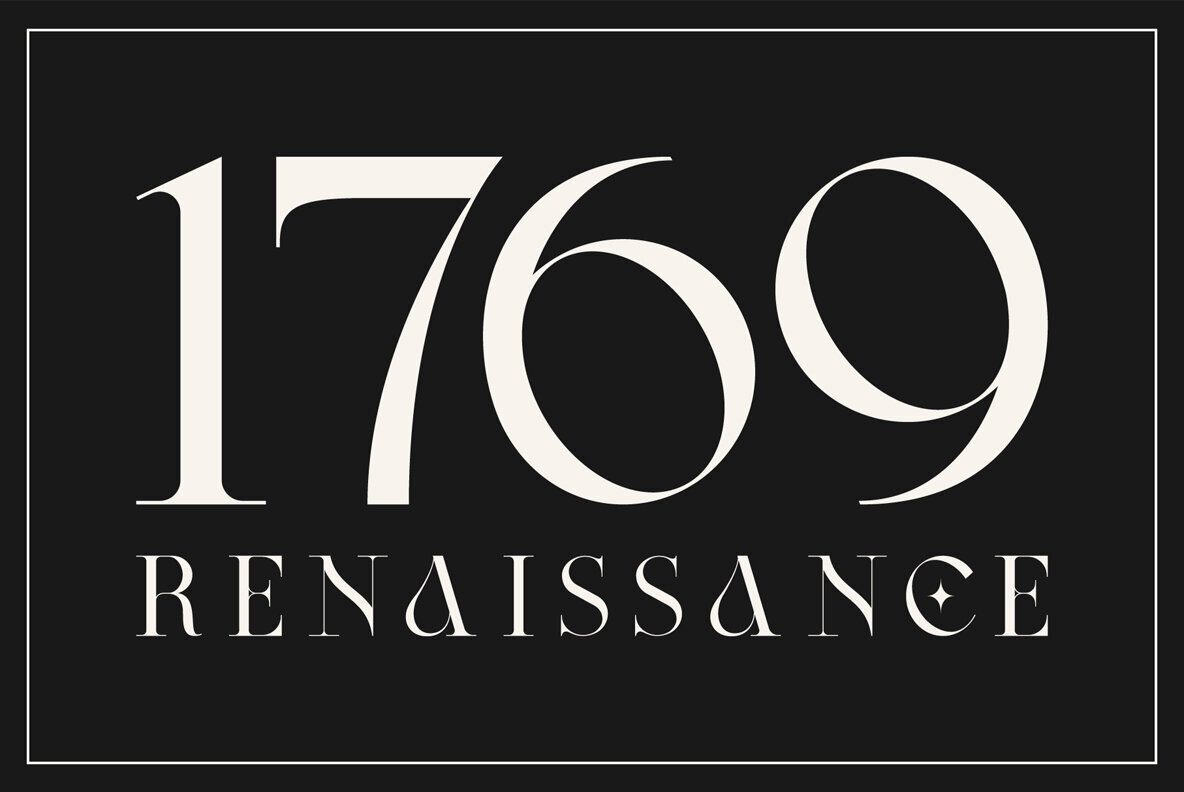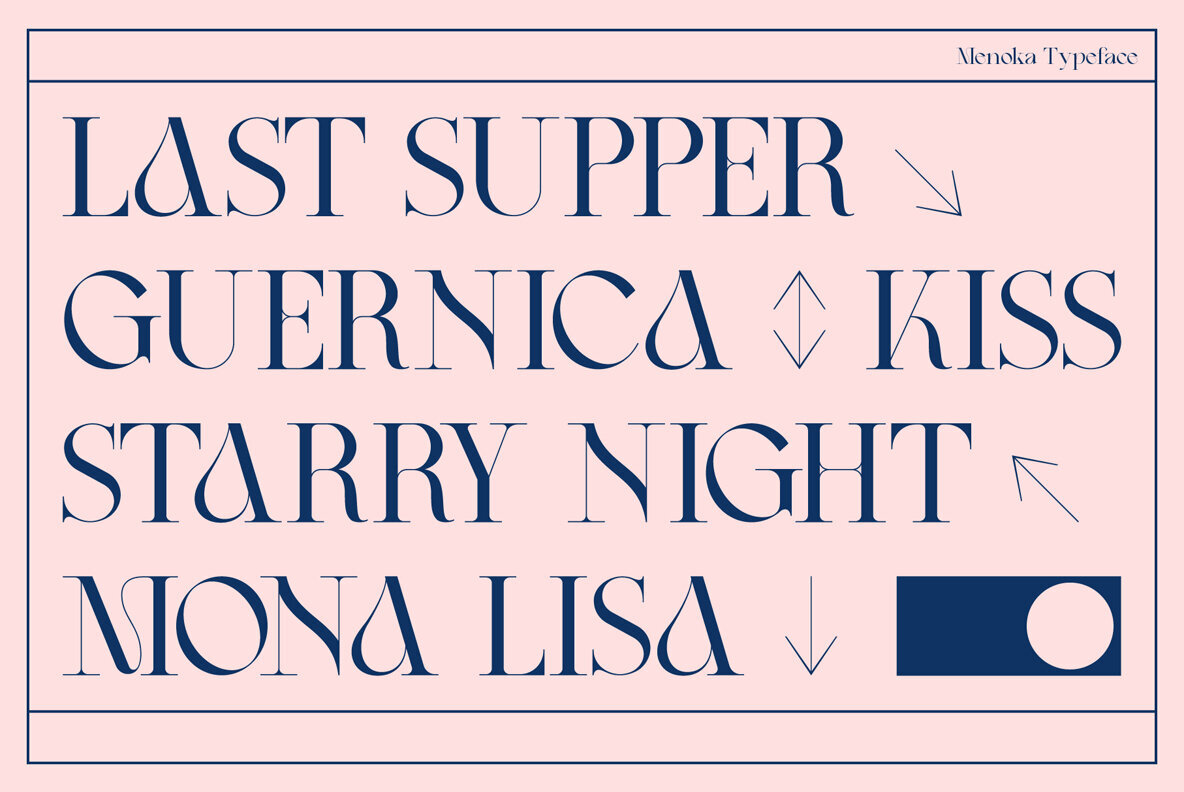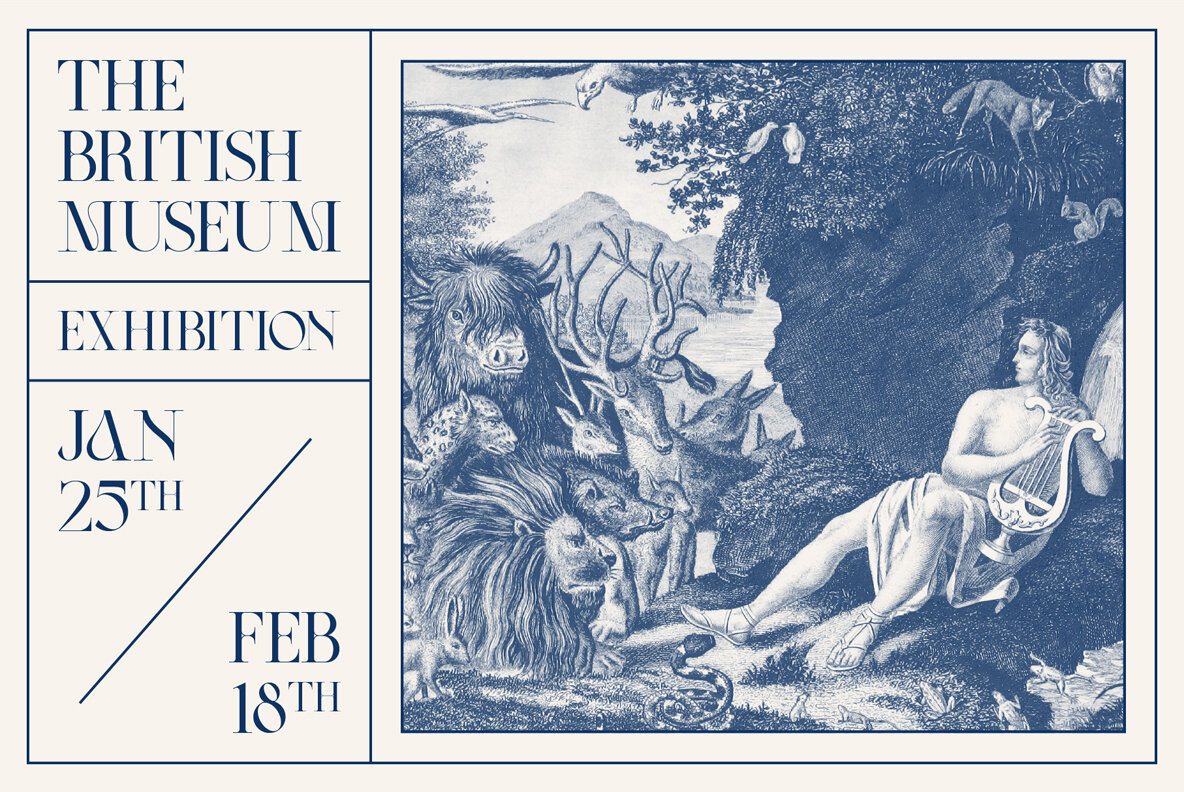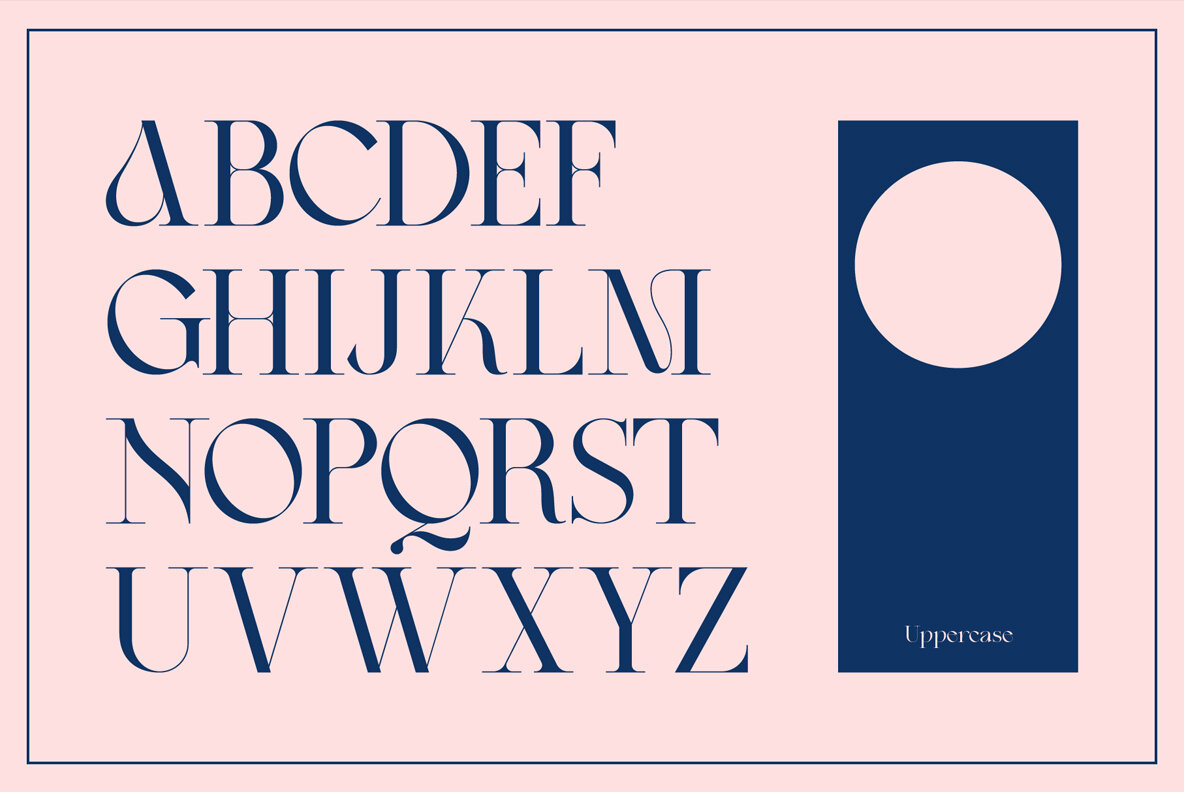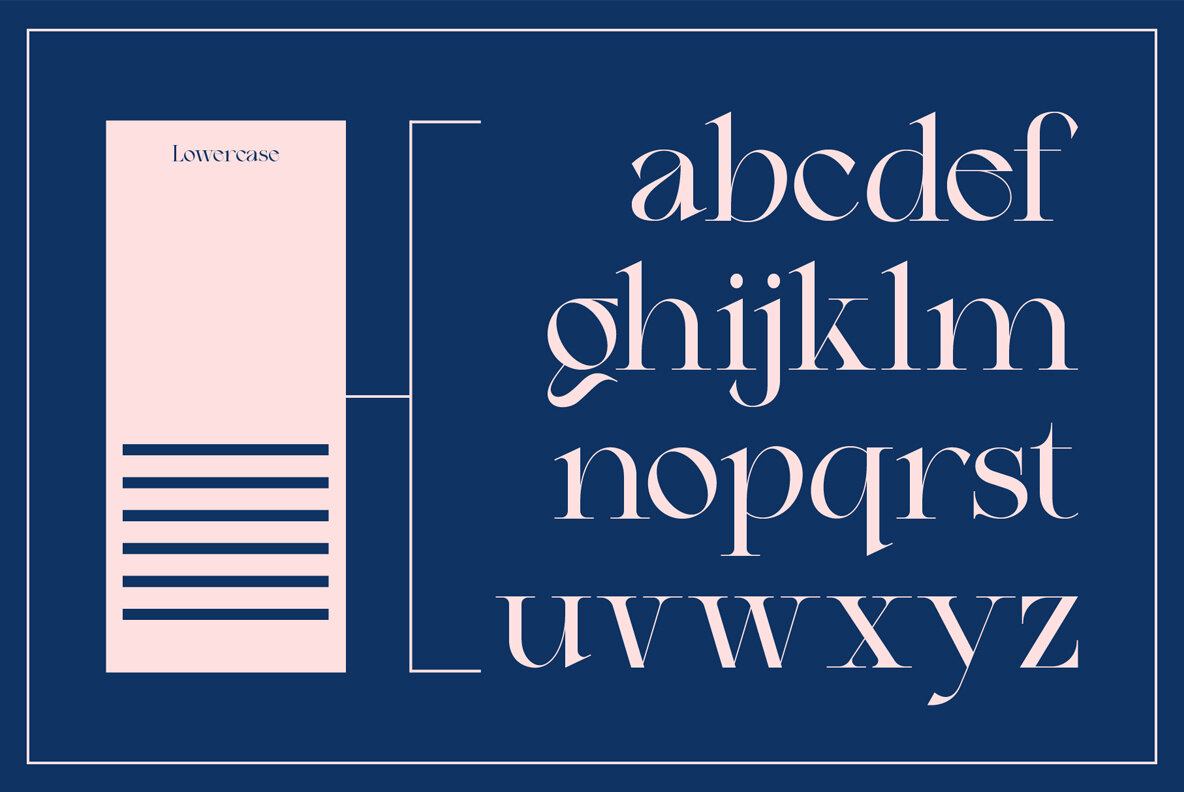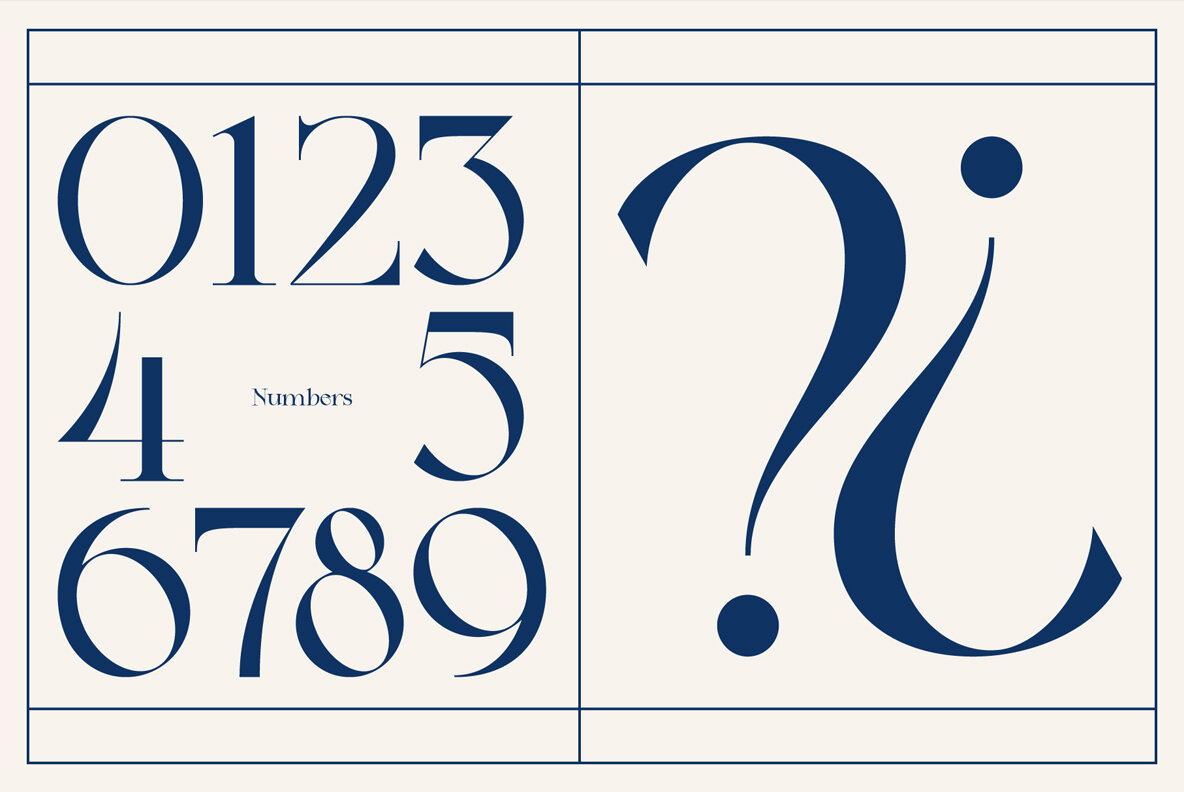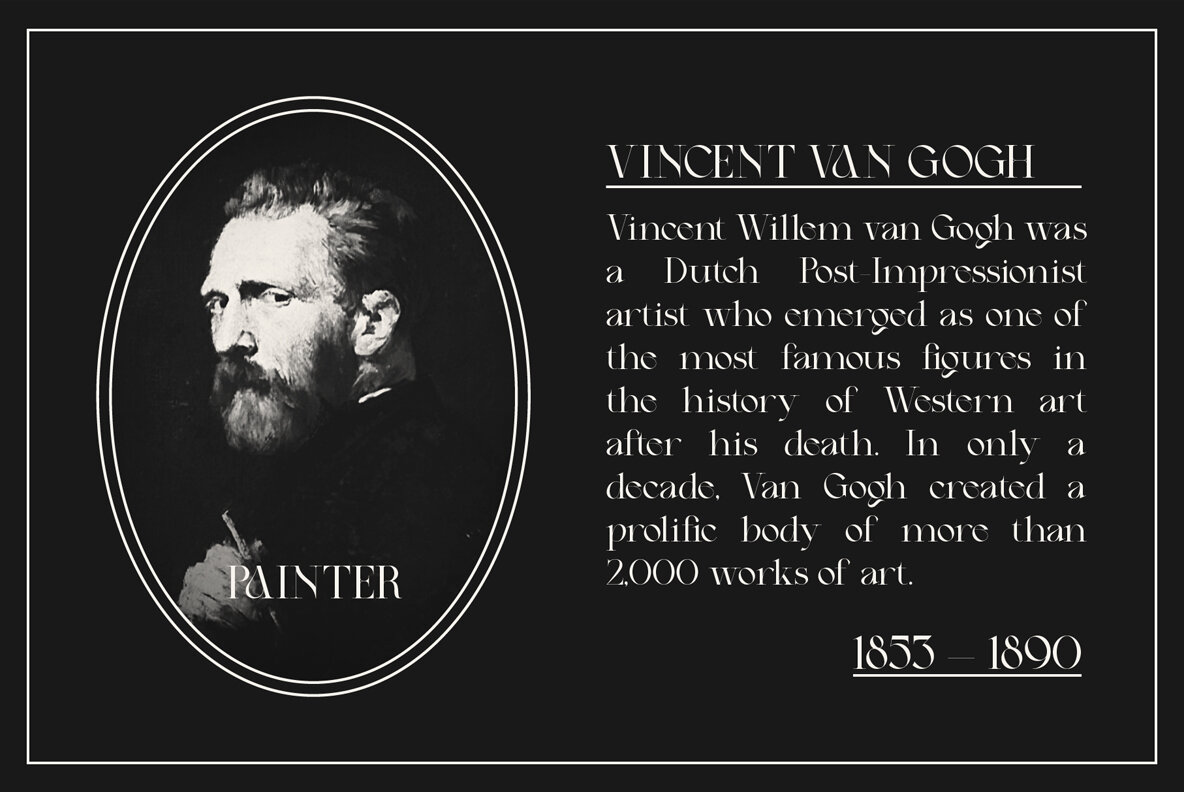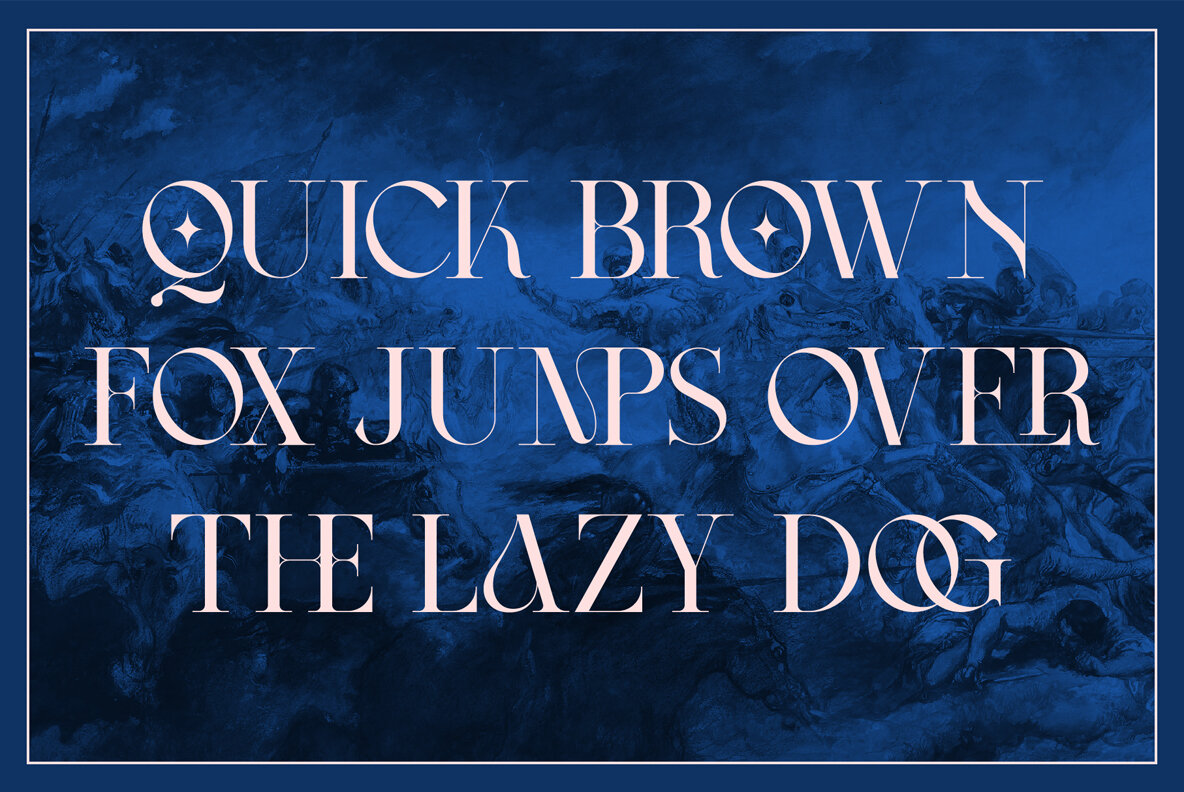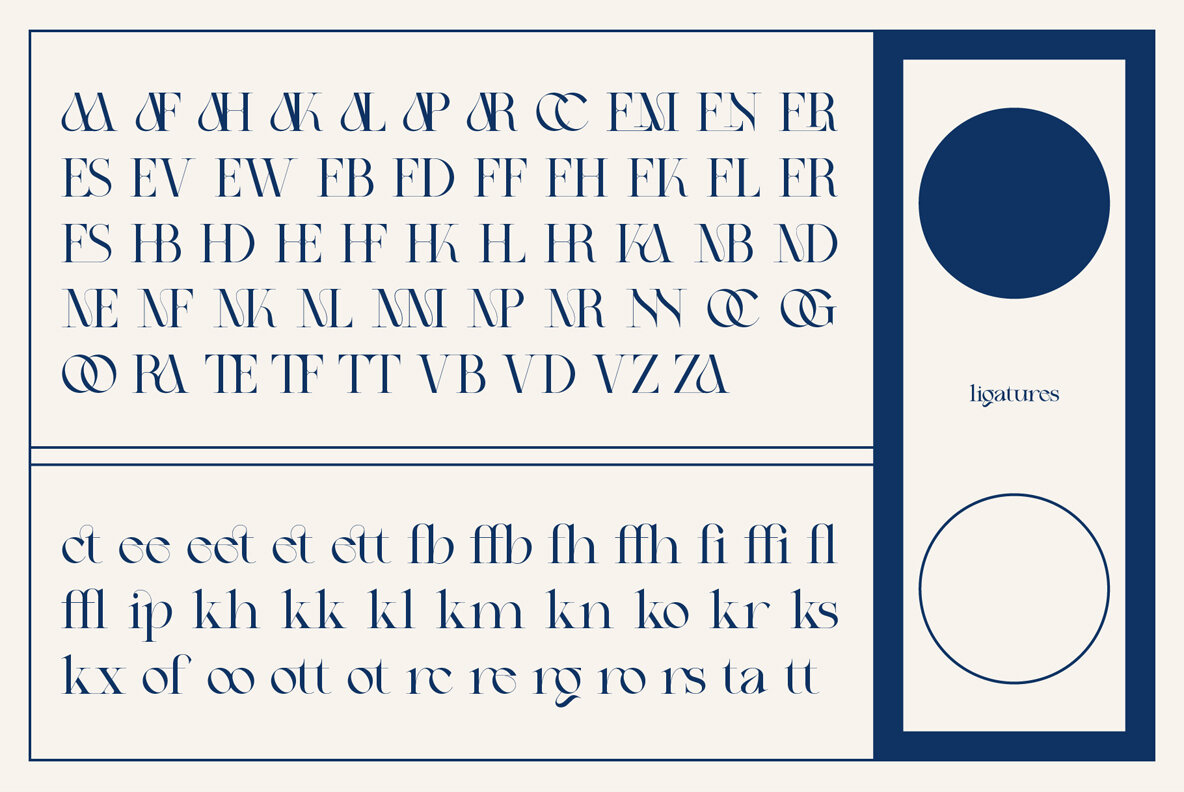
Menoka is an elegant and modern serif typeface inspired by the late renaissance period. Menoka was designed with a very thin hairline and long serifs, this reflects the elegance and sophistication that was evident during the 17th century.
With over 90 stylistic ligatures, Menoka is great for headlines and short to medium texts. Menoka is compatible with 93 languages and contains 433 glyphs, including several alternatives.